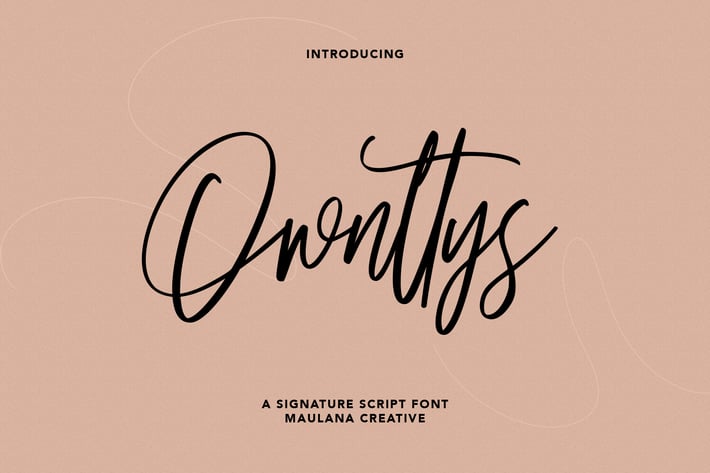
Ownttys Signature Script Font
Ownttys is a handwritten script font, With fancy slanted and fun characters. It has Opentype features of ligatures, makes it a perfect choice for branding and digital designs. Use this font for logos, social media, websites, blogs, instagram, social media, business cards, branding, and more! Ownttys font support multilingual more than 100+ language. and good pair for your secondary text font with sans or serif. Make a stunning work with Ownttys script font.